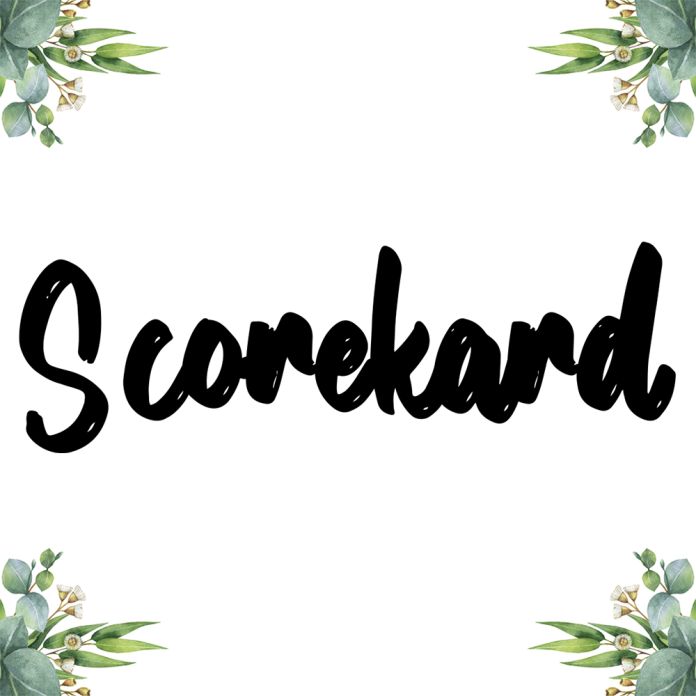
Scorekard is a delicate, elegant, and flowing handwritten font. It has beautiful and well-balanced characters and as a result, it matches a wide pool of designs.